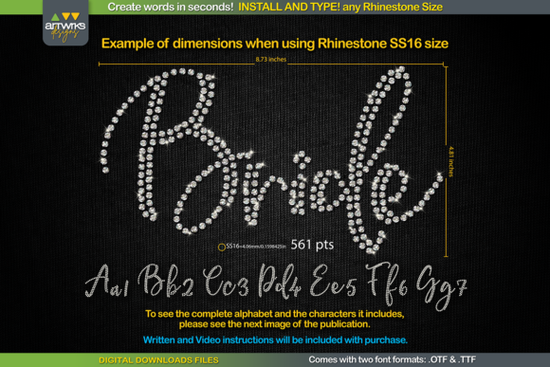
If you’ve ever wanted to add sparkling rhinestone text to T-shirts, tote bags, or custom apparel without spending hours placing individual stones, the RS01 Cursiva Rhinestone Template TTF Font is a practical solution. This digital font works like any standard typeface you install it, type your word, and instantly get a ready-to-cut template filled with perfectly spaced rhinestone placements. It’s especially useful for crafters using Cricut Design Space, Silhouette Studio, or Adobe Illustrator who need precision and speed.
How does a rhinestone template font actually work?
Unlike regular fonts, this TTF file is designed so that each letter already contains cut paths arranged specifically for rhinestones or heat transfer vinyl (HTV). When you type “GLAM” in RS01 Cursiva, you don’t just get outlines you get a design where every curve and stroke is pre-configured with holes or placement guides sized for common rhinestone types like SS6, SS10, SS16, or SS20.
The key is matching your font size to your stone size. For example:
- SS6 stones: use 359 pt
- SS10 stones: use 456 pt
- SS16 stones: use 561 pt
- SS20 stones: use 738 pt
These sizes ensure the spacing between each stone matches the physical dimensions of your rhinestones, so your final design looks clean and professional. Note that recent updates to Cricut Design Space may not preserve these exact sizes automatically, so you’ll need to manually adjust the point size based on your chosen stone something the included instructions walk you through.
Who is this font best for?
This tool shines for small business owners creating custom merchandise, print-on-demand sellers building mockups, or hobbyists making personalized gifts. If you regularly work with:
- Rhinestone appliqués
- Heat transfer vinyl layering
- Craft cutters like Cricut or Silhouette
…then having a typeable template saves significant time over manual placement. You’re not just buying a font you’re getting a production shortcut.
Remember: this font only supports the characters shown in the product preview image, so avoid expecting full punctuation or alternate glyphs unless they’re visible in the sample.